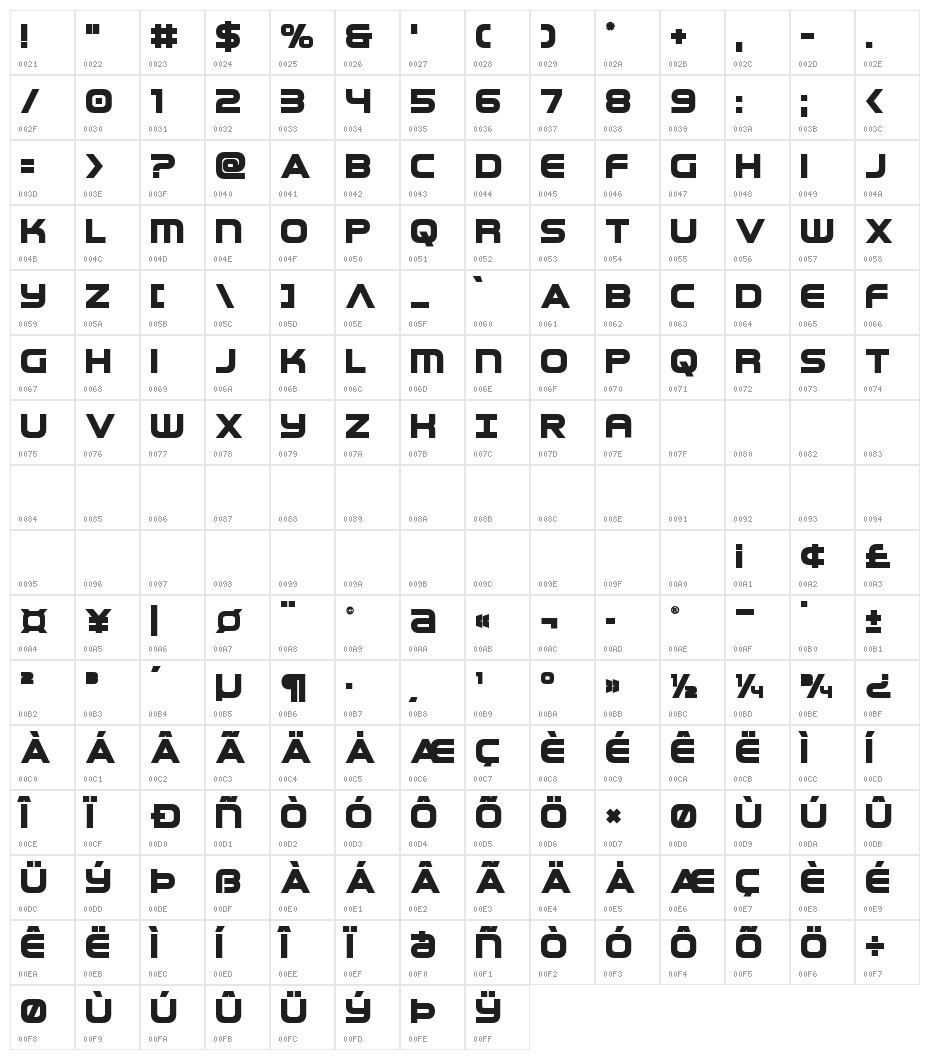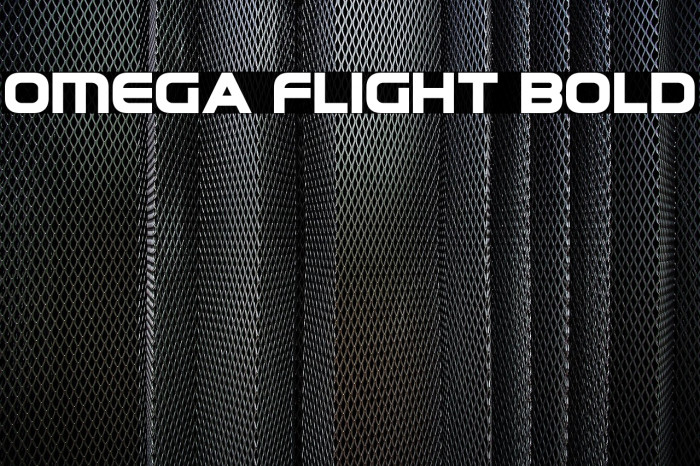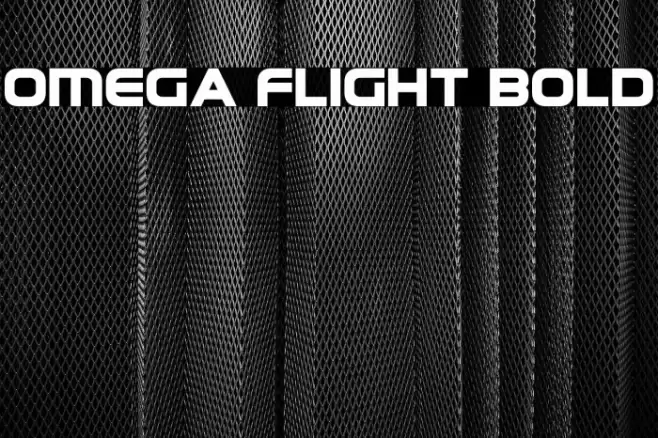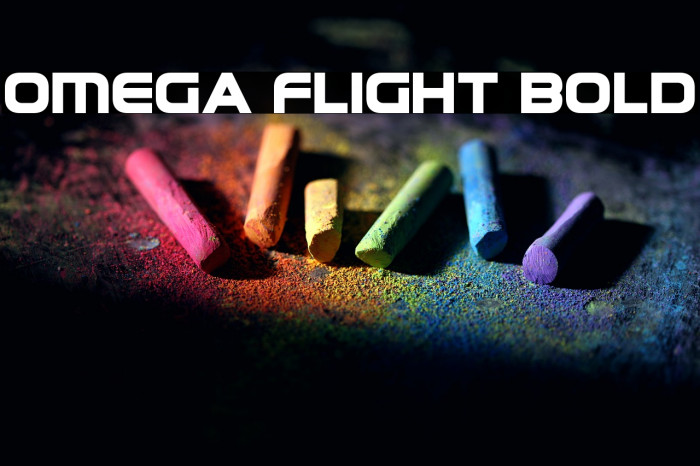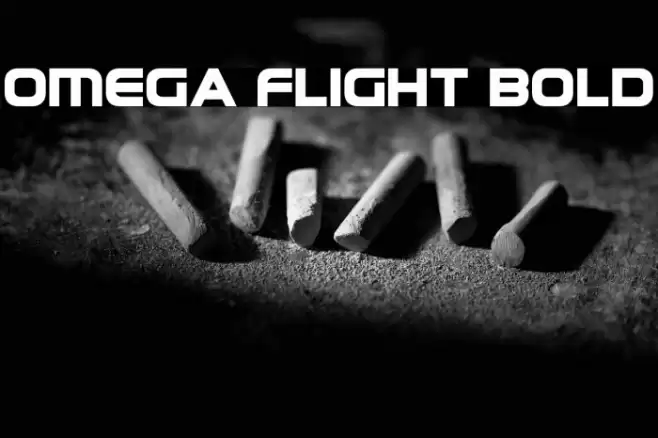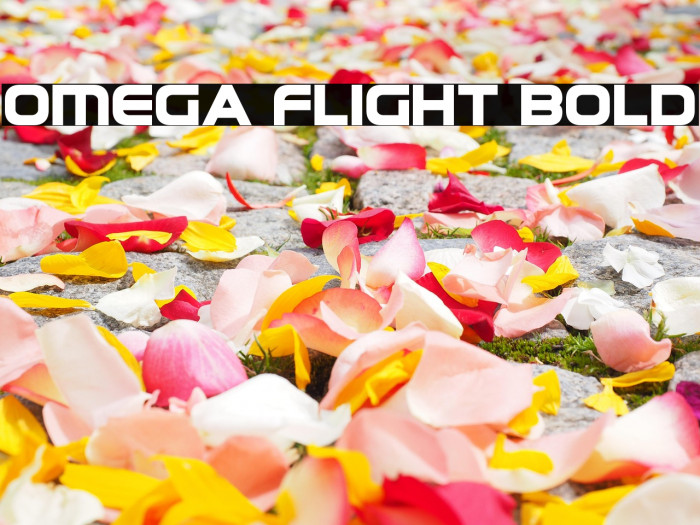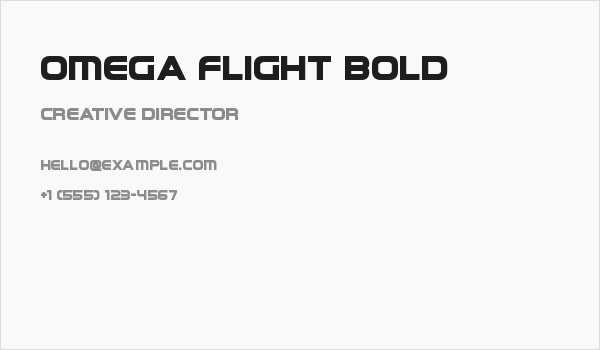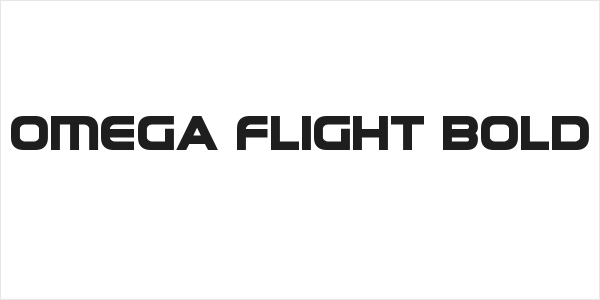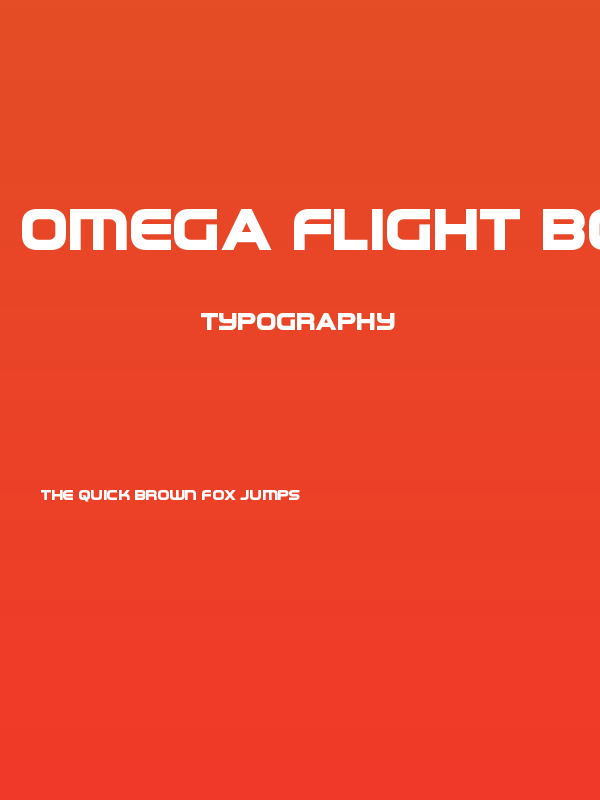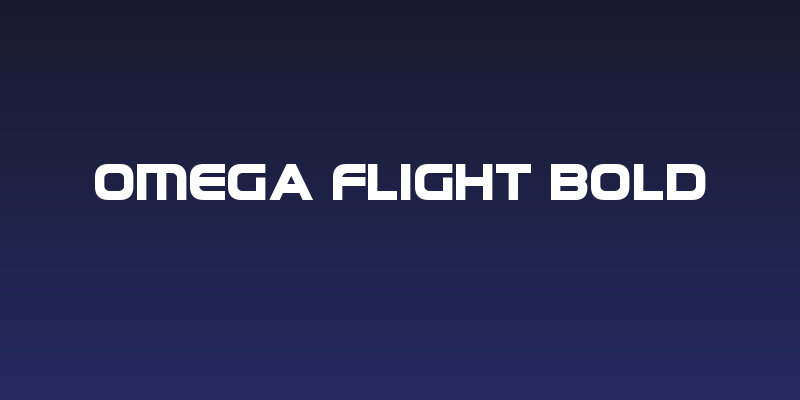
Omega Flight Bold Font
Omega Flight Bold Description
This font features a bold and modern design with a futuristic flair, characterized by its geometric shapes and clean lines. The uppercase and lowercase letters maintain a consistent width, contributing to a uniform appearance. The numerals are distinct and easily readable, while the special characters complement the overall style. Its bold weight and strong presence make it suitable for attention-grabbing headlines and impactful designs. The font's structure is both functional and aesthetically pleasing, making it versatile for various design applications.
| Proposed Projects | Ideal for technology branding, sci-fi posters, video game titles, and modern advertising campaigns. |